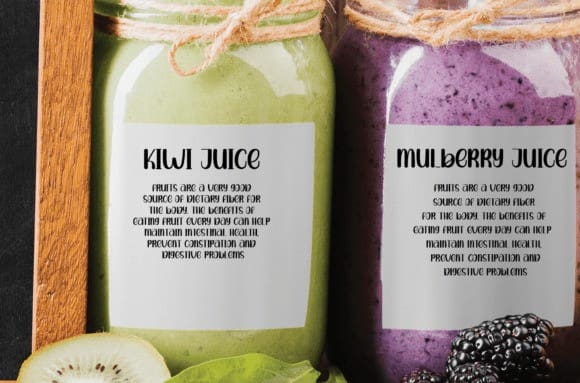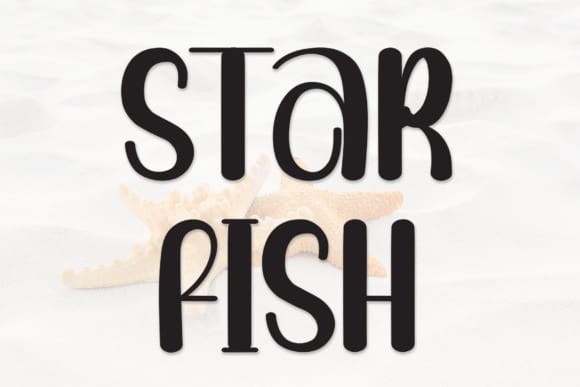
Star Fish Font
Star Fish Font is a sweet and friendly handwritten font. Fun and relaxed, this font is ideal for writing wedding invitations, cards, or any other design that might need a joyful touch!